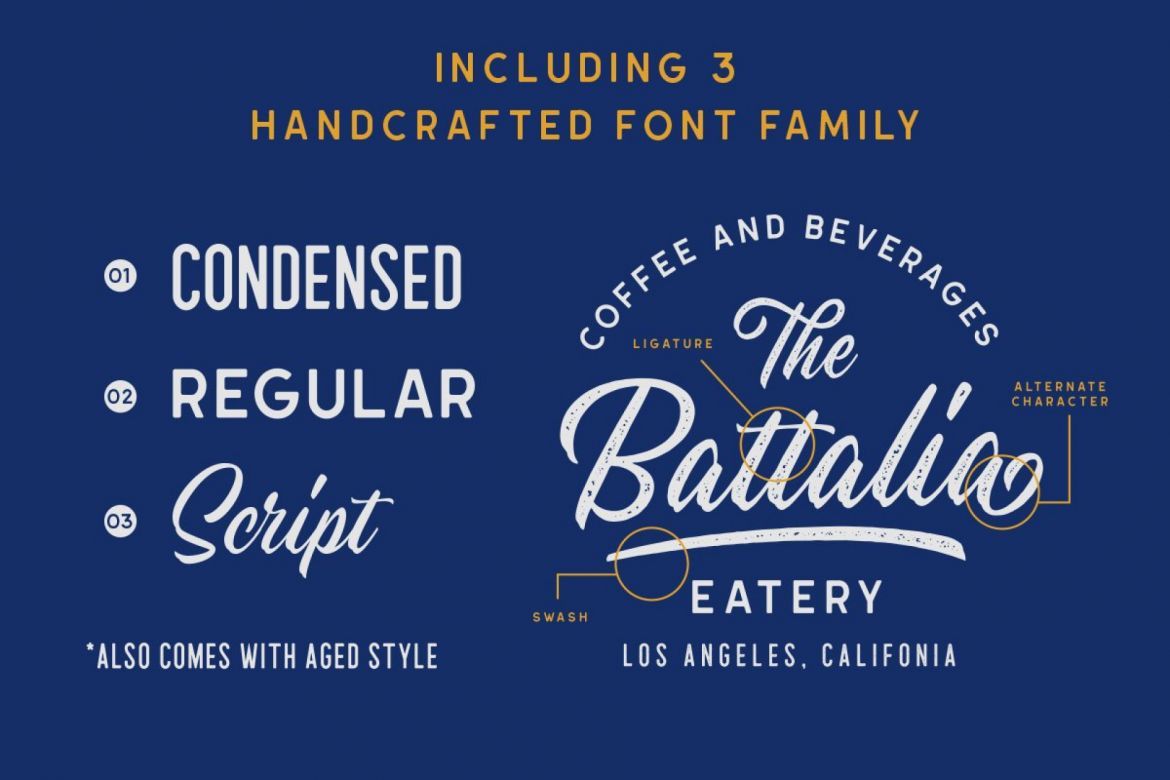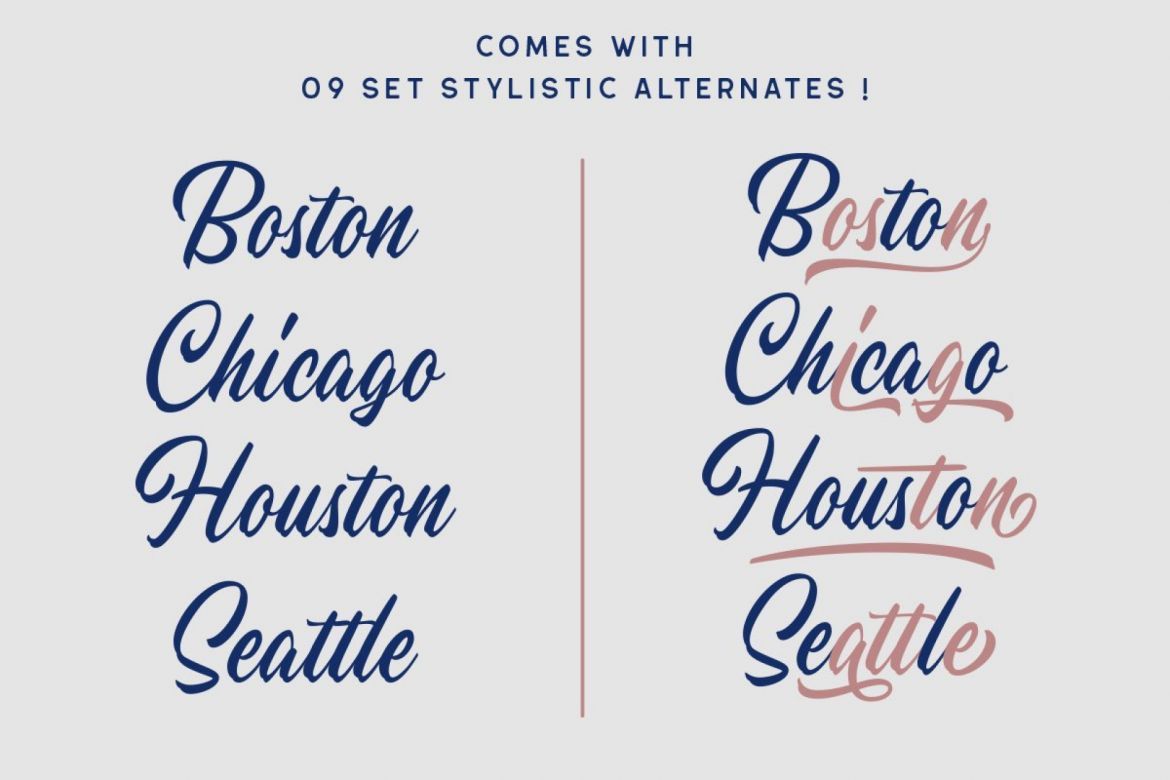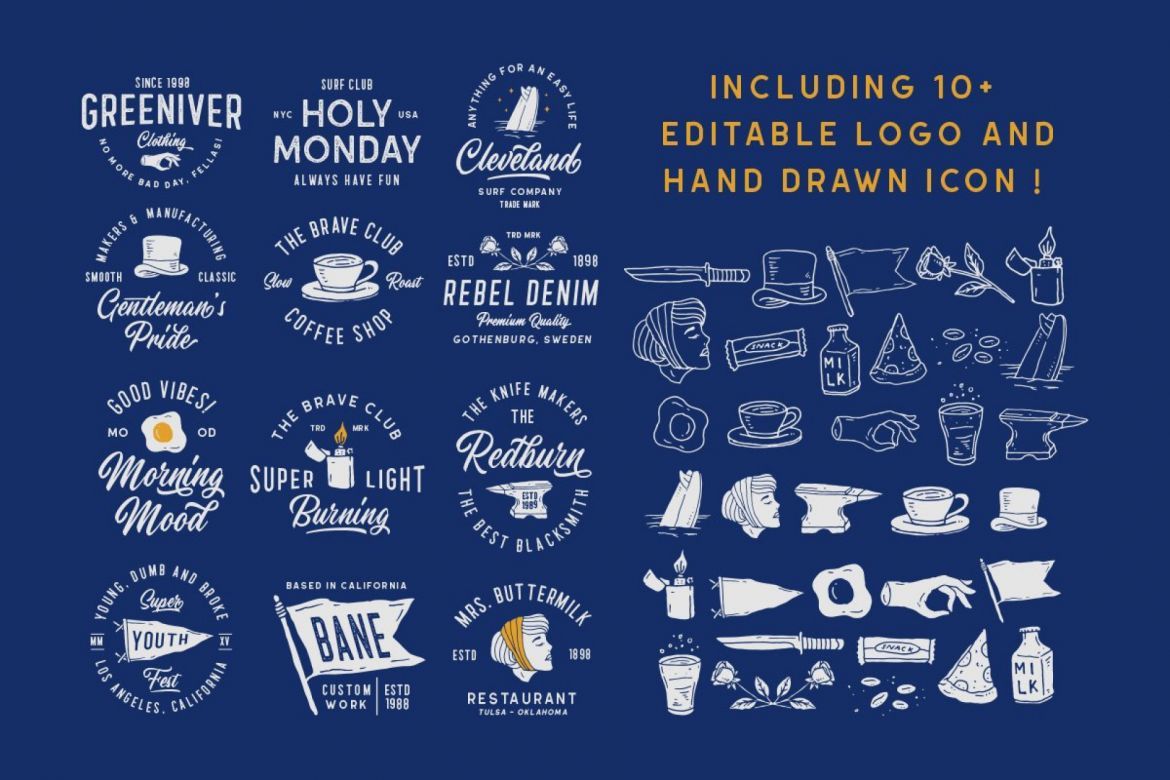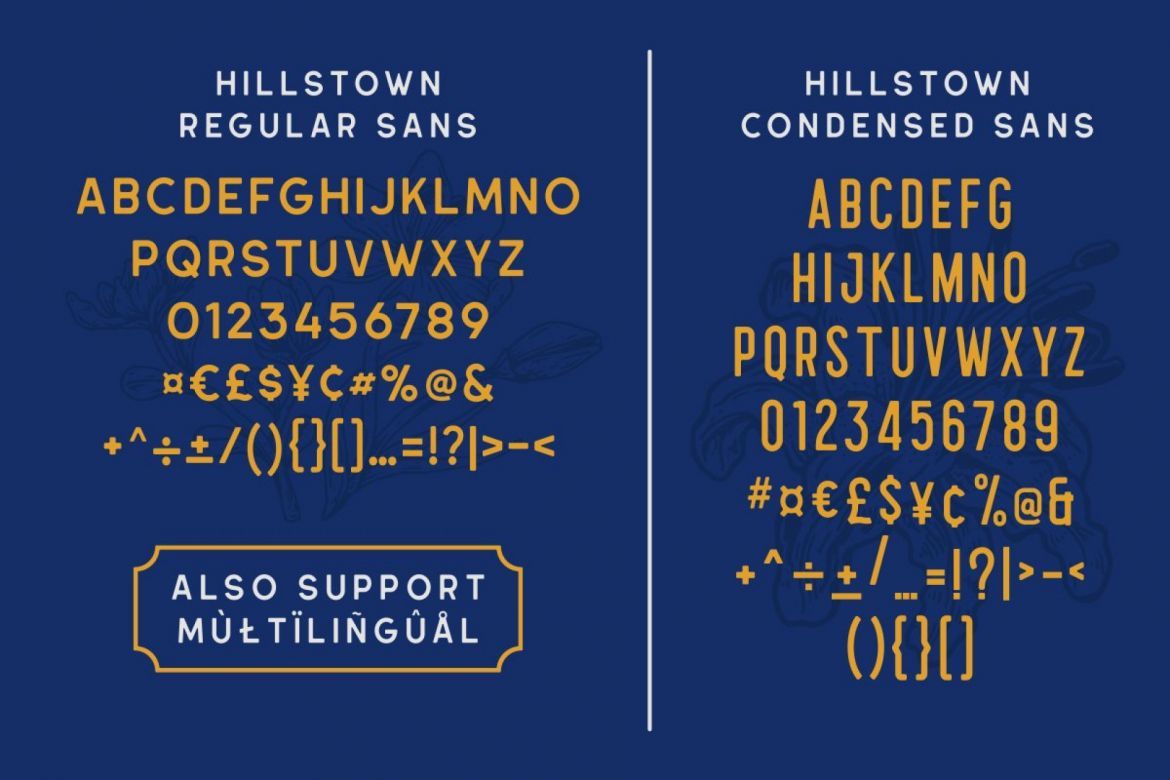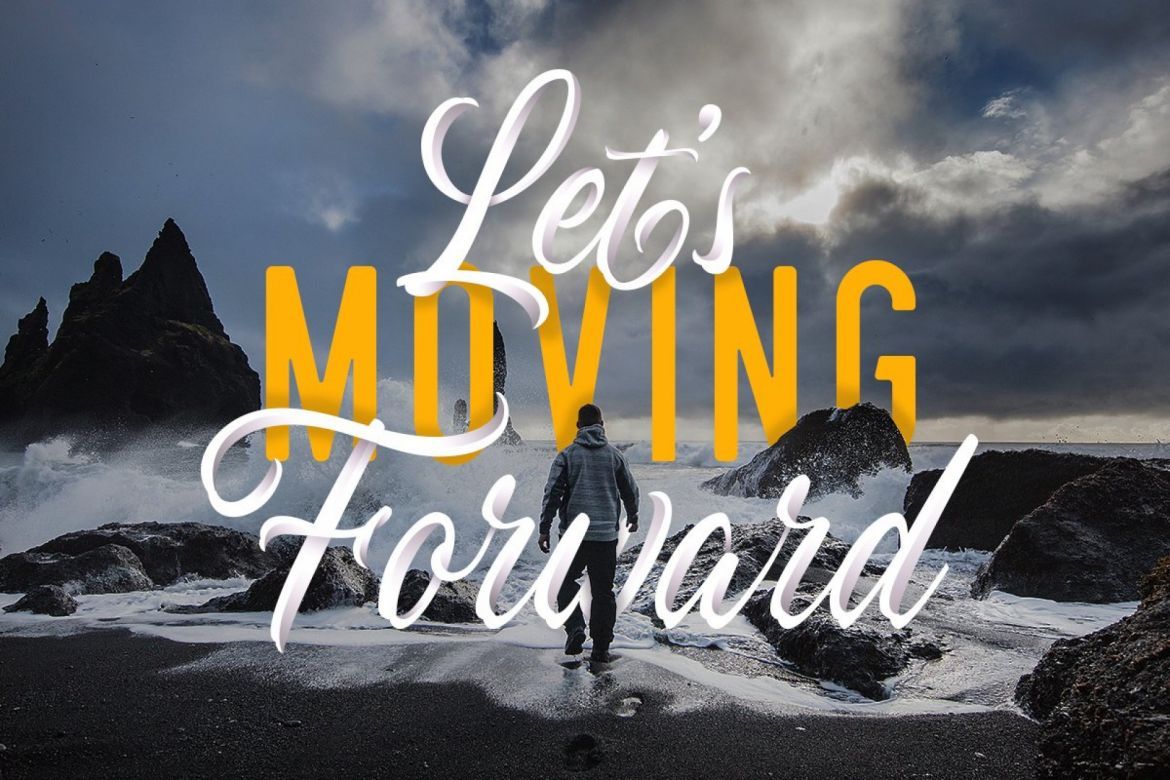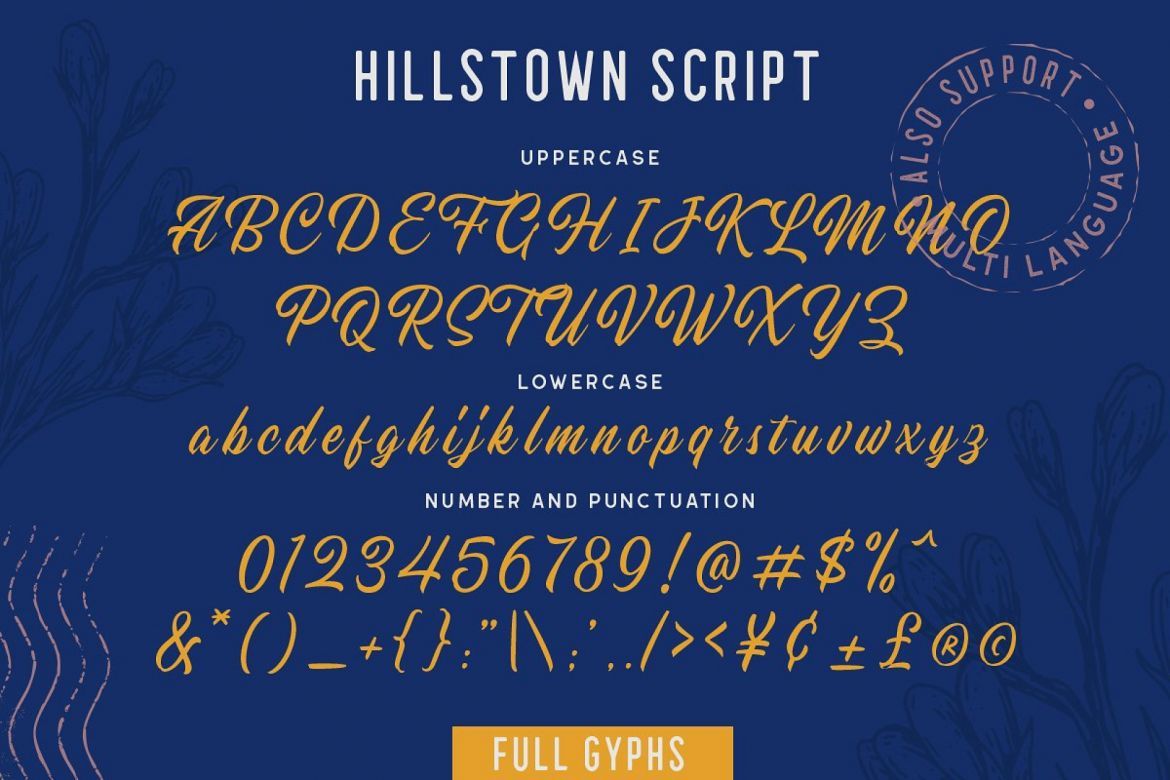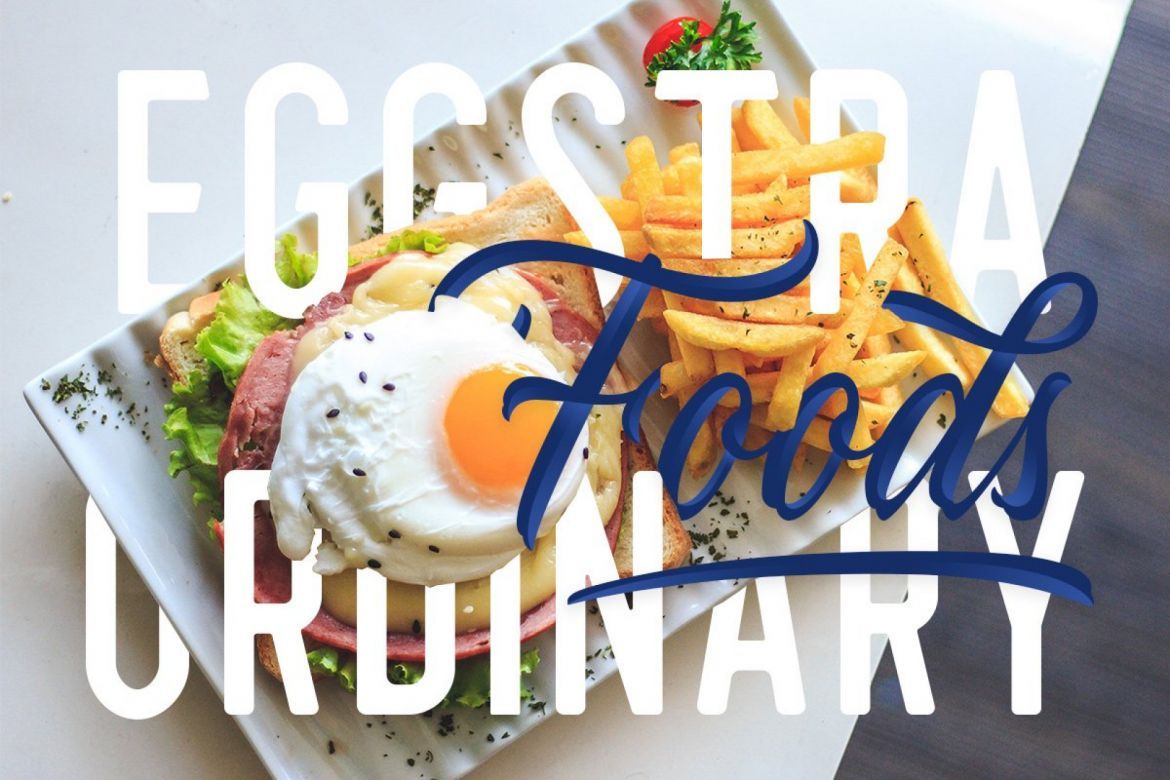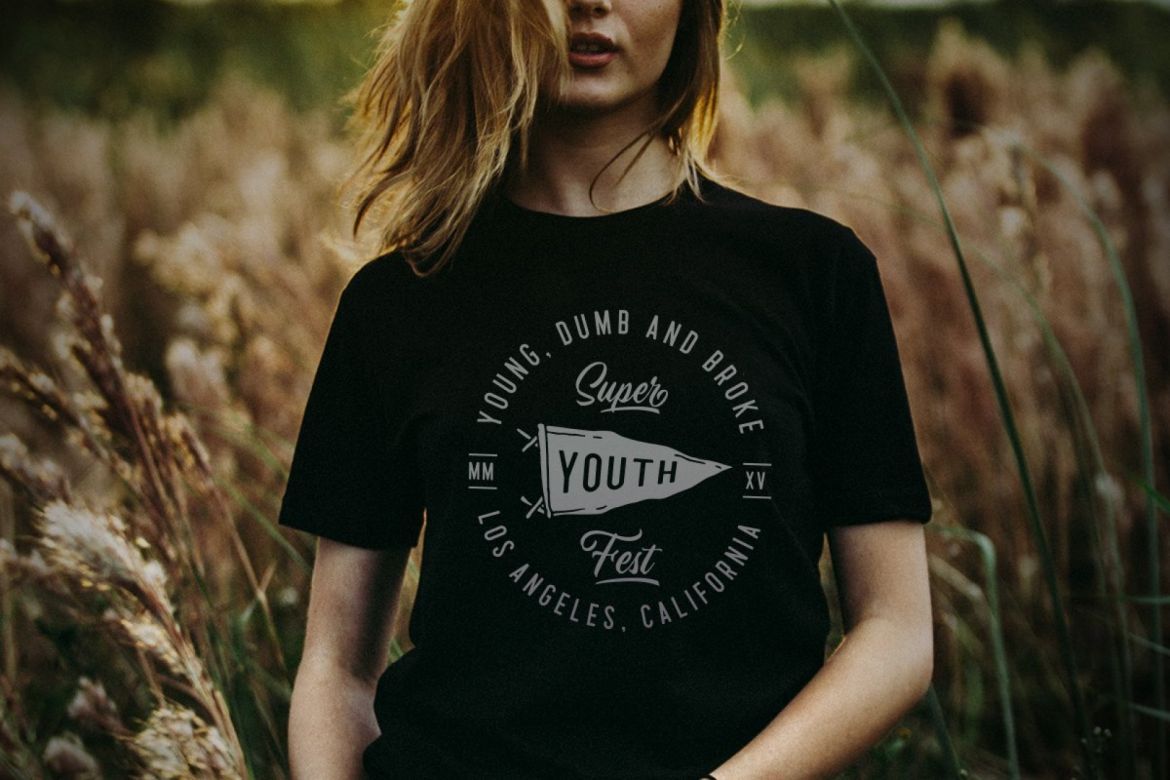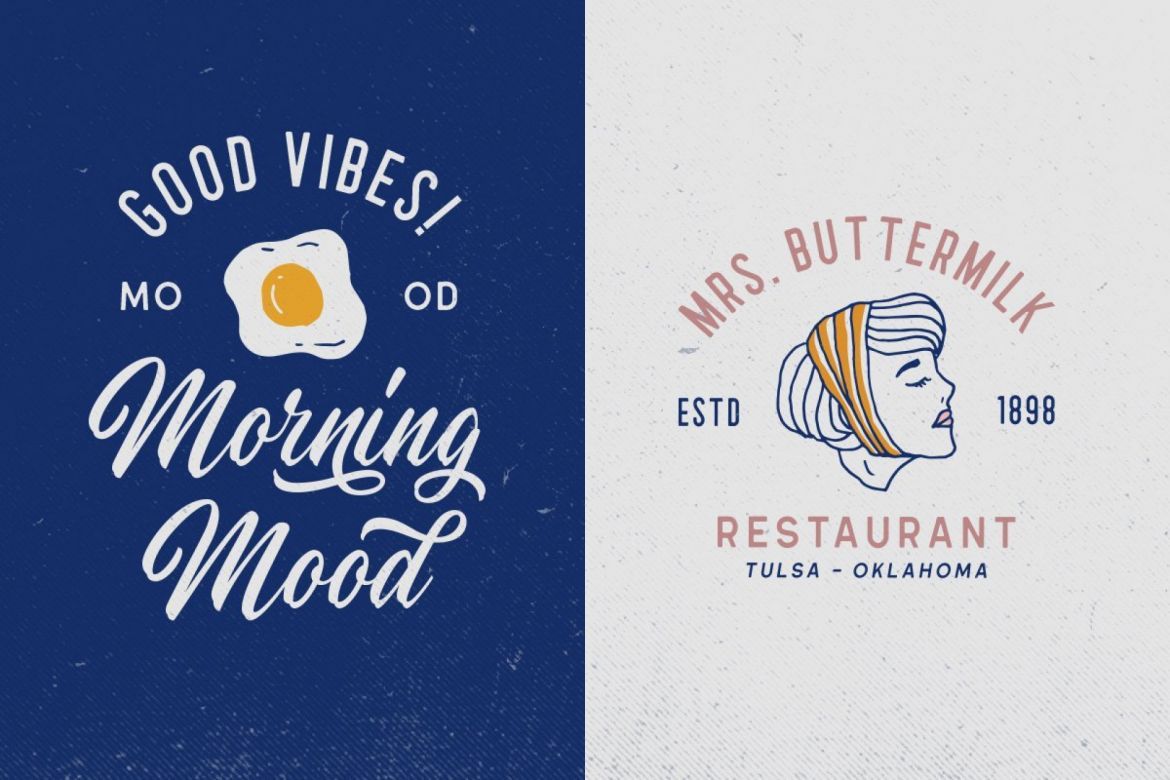
Hillstown Font Collection
Hillstown Font Collection (+EXTRA)
• classic nuance is perfect for those of you who need fonts for especially types of logos, clothing, invitations, branding, packaging, advertisements, etc.
• supports multilingual and pua-encoded.